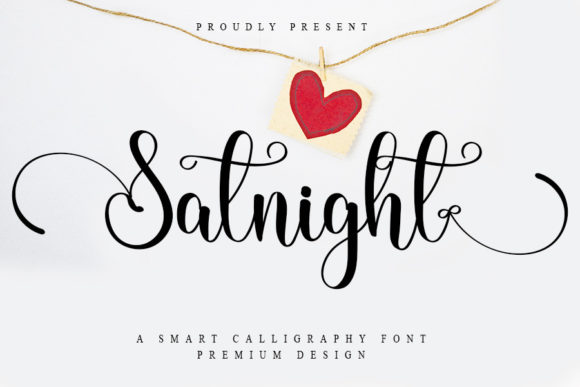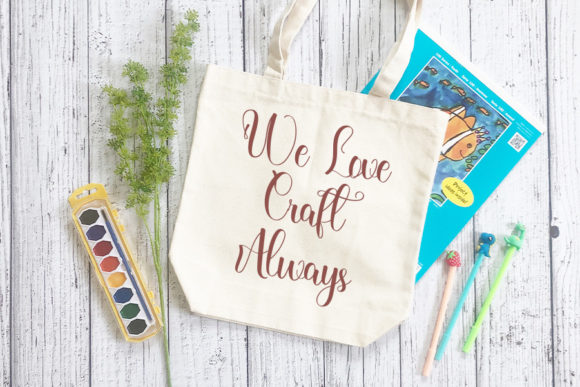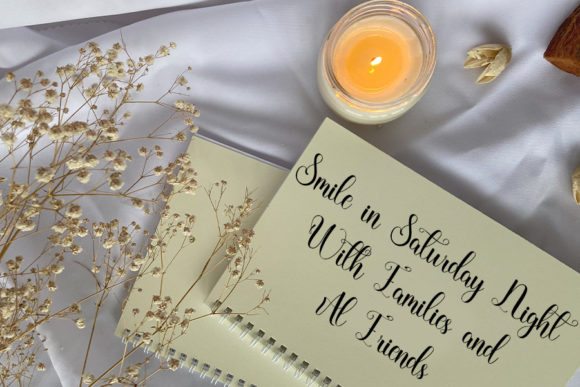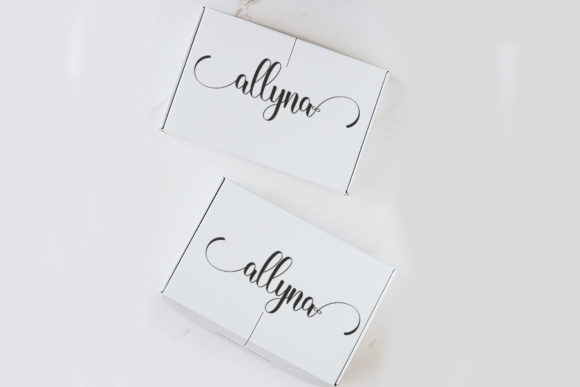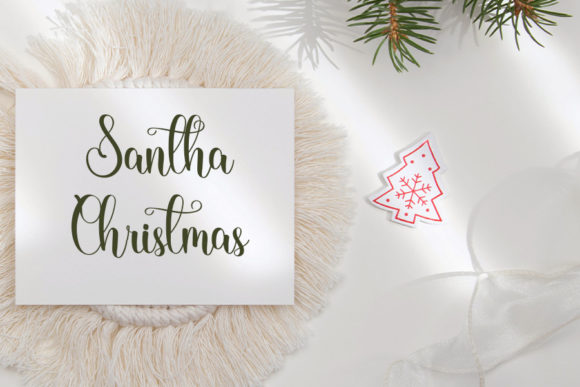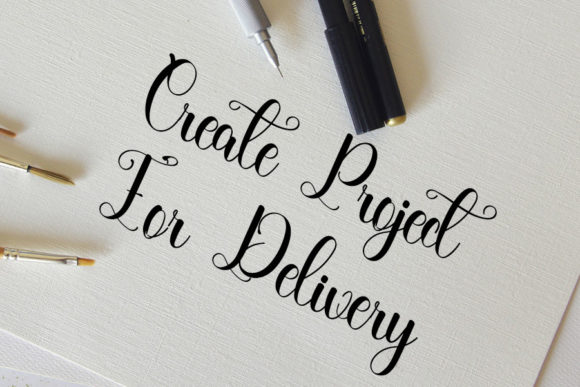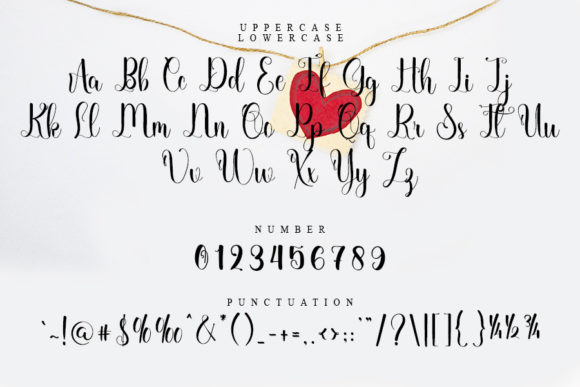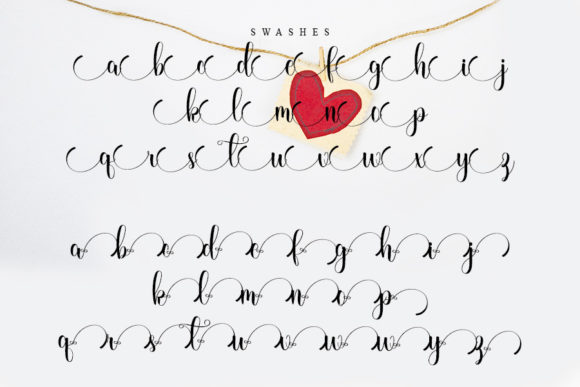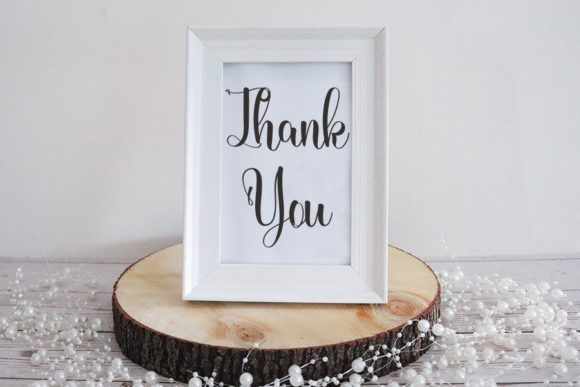
Satnight Font
About Satnight Font
**Satnight Font: Classy and Refined Script Elegance**
Introducing *Satnight Font*, a beautiful and refined script typeface that exudes class, elegance, and a modern aesthetic. This versatile font is designed for a wide array of applications, including logos, branding, invitations, stationery, wedding designs, social media posts, and much more. With its PUA encoding, accessing all the amazing glyphs and ligatures is a seamless experience, providing you with a wealth of design possibilities.
The allure of *Satnight* lies in its timeless and sophisticated design. Each letter is meticulously crafted, resulting in a font that not only captivates visually but also adapts seamlessly to various design needs. Whether you’re creating a logo that leaves a lasting impression, crafting elegant wedding invitations, or curating captivating social media posts, *Satnight* adds a touch of refined beauty to your designs.
This font is more than just letters on a page; it’s about creating an atmosphere of class and elegance. The modern look of *Satnight* makes it a go-to choice for a wide range of creative projects. Its adaptability ensures that it enhances the visual appeal of your work across different platforms and contexts.
One notable feature of *Satnight* is its PUA encoding, providing easy access to a plethora of amazing glyphs and ligatures. This functionality empowers you to explore and incorporate unique elements into your designs effortlessly, allowing for a truly customized and personalized touch.
In summary, *Satnight Font* is not just a typeface; it’s an embodiment of beautifully refined elegance that transforms your designs into visual masterpieces. Elevate your projects with the timeless charm of *Satnight*, turning every creative endeavor into a statement of class and sophistication. Whether you’re designing for business, celebrations, or social media, let *Satnight* be the font that adds a touch of modern elegance to your creative repertoire.